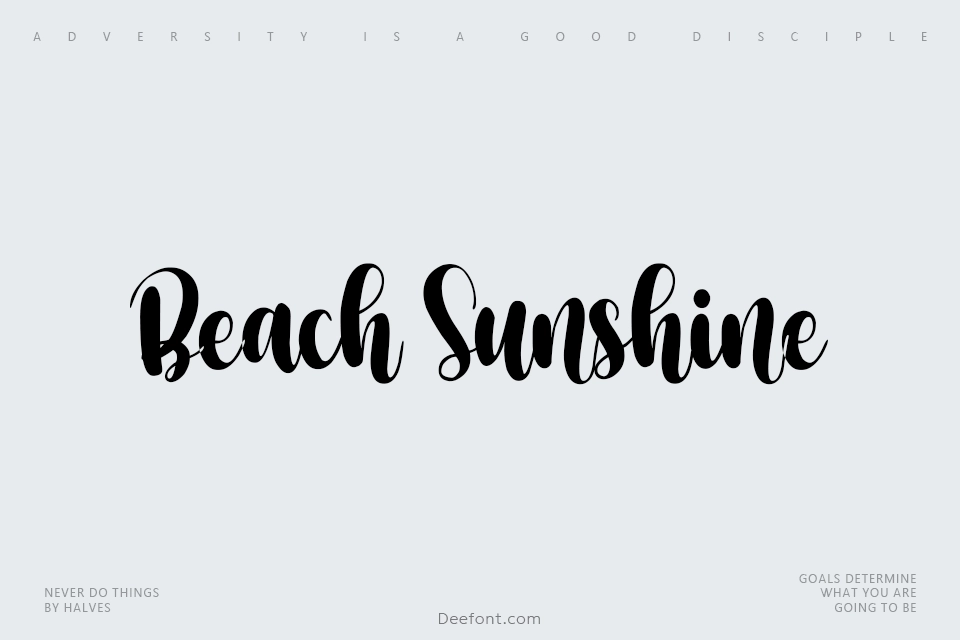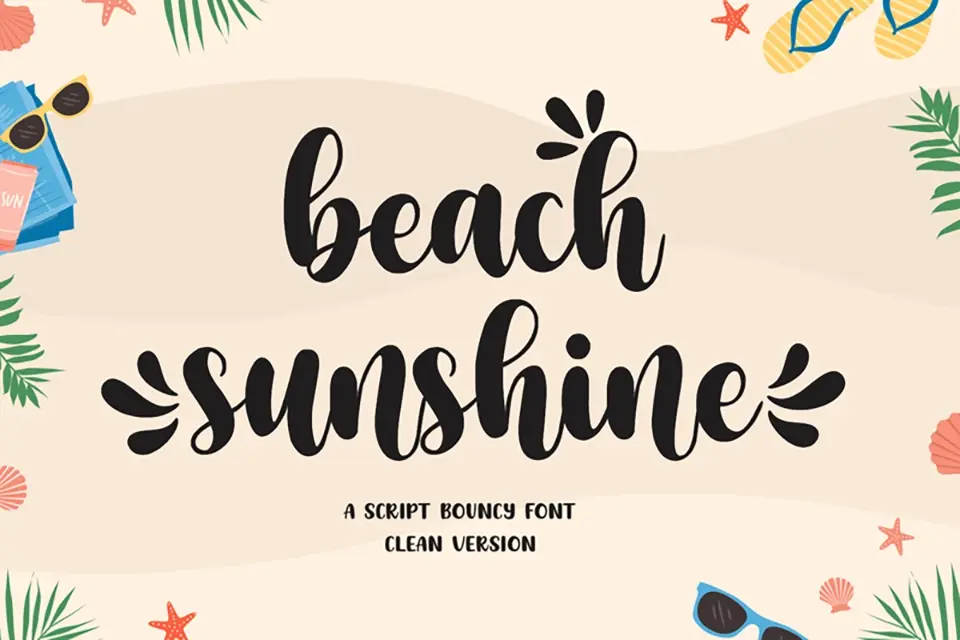
Beach Sunshine Font
Beach Sunshine is a delicate and cheerful handwritten script font designed with bold, bubbly curves that radiate fun and energy. Its distinct, well-rounded letters make it perfect for summer-themed designs, playful branding, kids’ products, invitations, posters, and eye-catching social media graphics. With multilingual support and a friendly personality, this typeface brings sunshine and creativity to every project.